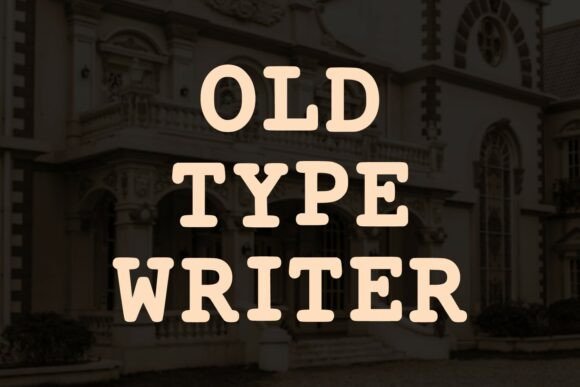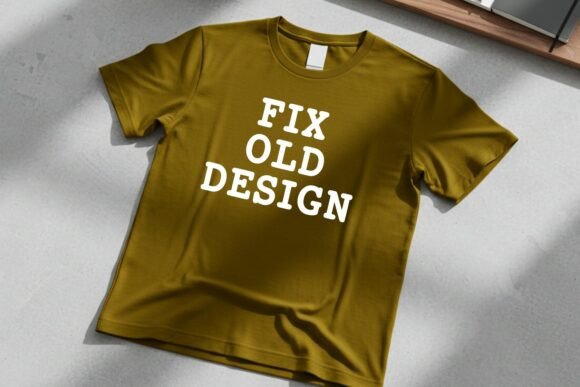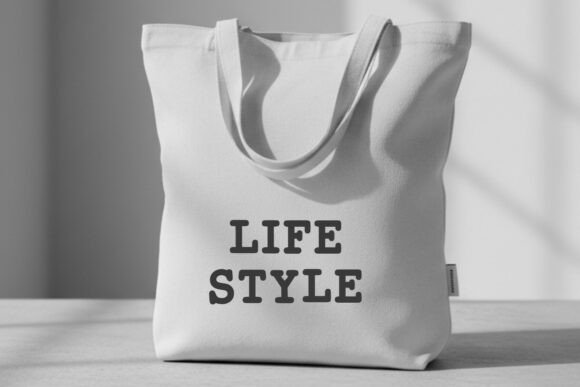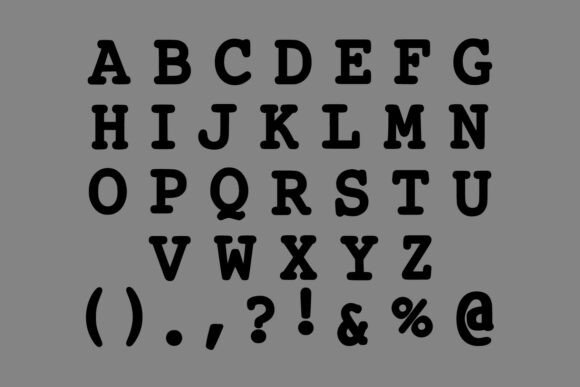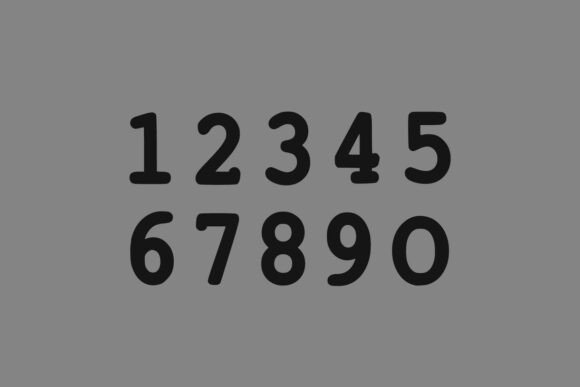
Cobow Writer Font: A Timeless Vintage Western Display Font
In the world of typography, few fonts evoke the spirit of the American West like Cobow Writer. This bold vintage western display font is inspired by classic old-style typography from the early 20th century, bringing a strong slab-style letterform that’s perfect for a variety of design projects. Whether you’re a designer, crafter, or simply someone who appreciates the rustic charm of western typography, Cobow Writer is a font that’s sure to captivate.
The Inspiration Behind Cobow Writer
Cobow Writer’s design is rooted in the rich history of western typography. The font’s creator drew inspiration from classic old-style typography of the early 20th century, when sign painters and letterers would hand-paint bold, eye-catching letterforms on storefronts, billboards, and posters. The result is a font that exudes a sense of nostalgia and authenticity, perfect for designers and crafters looking to add a touch of vintage charm to their work.
Key Features of Cobow Writer
Cobow Writer’s strong slab-style letterforms are its defining feature. The font’s bold, chunky lines create a timeless and authentic retro look that’s perfect for a variety of design applications. Some of the key features of Cobow Writer include:
- Bold and eye-catching: Cobow Writer’s bold letterforms are designed to grab attention and make a statement.
- Slab-style lettering: The font’s slab-style letterforms evoke the classic look of vintage western typography.
- Retro charm: Cobow Writer’s nostalgic character is perfect for designers and crafters looking to add a touch of vintage charm to their work.
- Highly versatile: The font is suitable for a wide range of design projects, from posters and branding to signage, packaging, and western-themed designs.
Design Applications for Cobow Writer
Cobow Writer’s versatility makes it an excellent choice for a wide range of design projects. Here are some ideas to get you started:
- Posters and flyers: Use Cobow Writer to create eye-catching posters and flyers that grab attention and evoke a sense of nostalgia.
- Branding and logos: The font’s bold, chunky lines make it perfect for creating memorable logos and brand identities.
- Signage and packaging: Cobow Writer’s strong letterforms are ideal for signage and packaging design, adding a touch of rustic charm to any product or service.
- Western-themed designs: The font is a natural fit for western-themed designs, such as wanted posters, vintage-style advertisements, and rustic branding.
- T-shirt designs: Cobow Writer’s bold letterforms make it perfect for t-shirt designs, adding a touch of vintage charm to any apparel.
Why Designers and Crafters Love Cobow Writer
Designers and crafters love Cobow Writer for its unique blend of vintage charm and versatility. Here are some reasons why:
- Easy to read: Despite its bold, chunky lines, Cobow Writer is surprisingly easy to read, making it perfect for designs that require a clear and concise message.
- Highly customizable: The font’s simple, bold design makes it easy to customize and manipulate, allowing designers and crafters to add their own unique touch.
- Nostalgic appeal: Cobow Writer’s vintage charm evokes a sense of nostalgia and authenticity, making it perfect for designers and crafters looking to add a touch of retro charm to their work.
Cobow Writer is a timeless vintage western display font that’s perfect for designers and crafters looking to add a touch of rustic charm to their work. With its strong slab-style letterforms and nostalgic appeal, this font is sure to captivate audiences and evoke a sense of nostalgia. Whether you’re working on a poster, branding project, or western-themed design, Cobow Writer is an excellent choice for any design project.